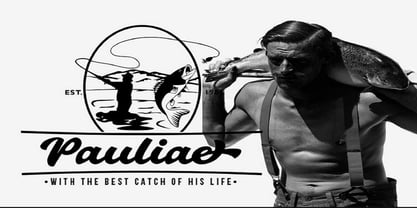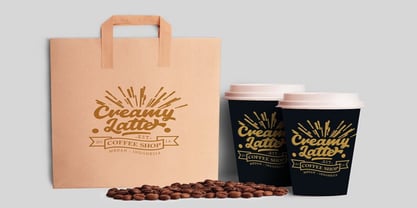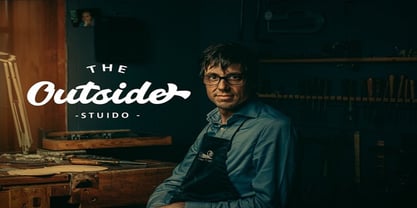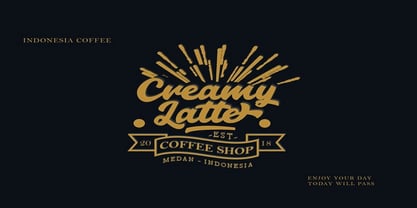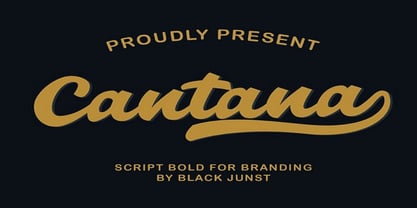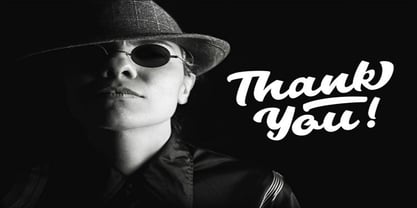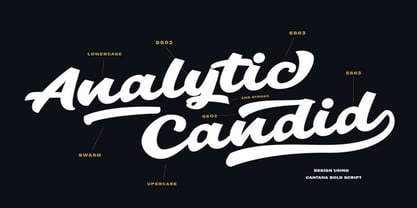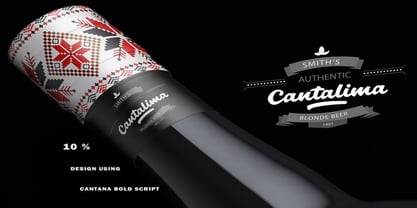
Cantana
by Black Junst
The Cantana Font Family was designed by Maulana Semar and published by Black Junst. Cantana contains 1 styles.
Cantana is a bold and stylish script font designed to enhance your branding and design projects. Featuring smooth strokes, a dynamic flow, and confident curves, Cantana brings a modern and professional flair to logos, packaging, headlines, and more. Ideal for crafting a striking brand identity or an attention-grabbing promotional piece, Cantana serves as your go-to font for making a powerful statement with elegance. Its versatile style makes it suitable for various applications, ensuring your designs stand out with sophistication.
Designers: Maulana Semar
Publisher: Black Junst
Foundry: Black Junst
Design Owner: Black Junst